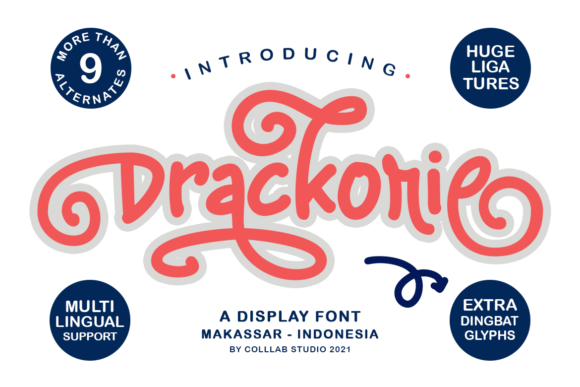
Behold, Drackorie – a script font that dances with grace and sophistication, ready to ignite your designs with an unforgettable touch of elegance!
Immerse yourself in the world of Drackorie, where every stroke tells a story. Its meticulously crafted curves and delicate flourishes evoke a sense of timeless beauty that will captivate your audience. With Drackorie, your designs will radiate an alluring charm that whispers luxury and refinement.
This enchanting font is the perfect companion for those seeking to add a touch of exclusivity to their creations. From bold embroidery to captivating logos, Drackorie will elevate your designs to new heights. Its PUA encoding grants you effortless access to a symphony of glyphs and swashes, empowering you to unleash your creativity without bounds.
Indulge in the exquisite world of Drackorie, where imagination and style collide. Let its timeless elegance become the cornerstone of your designs, leaving an indelible mark on the hearts of all who behold it.